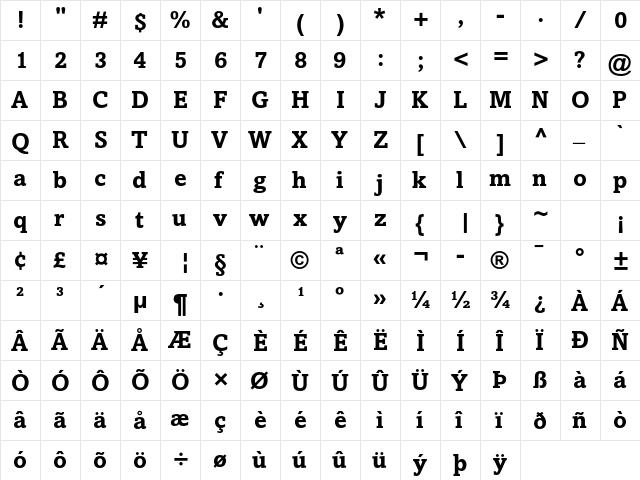
Amasis MT Std Bold
| Foundry | Agfa Monotype Corporation |
Design Context for Amasis MT Std Typeface
Amasis MT Std is a composed and adaptable typeface that performs quietly and consistently across a wide range of design contexts. Its bold stroke weight gives it real presence on the page.